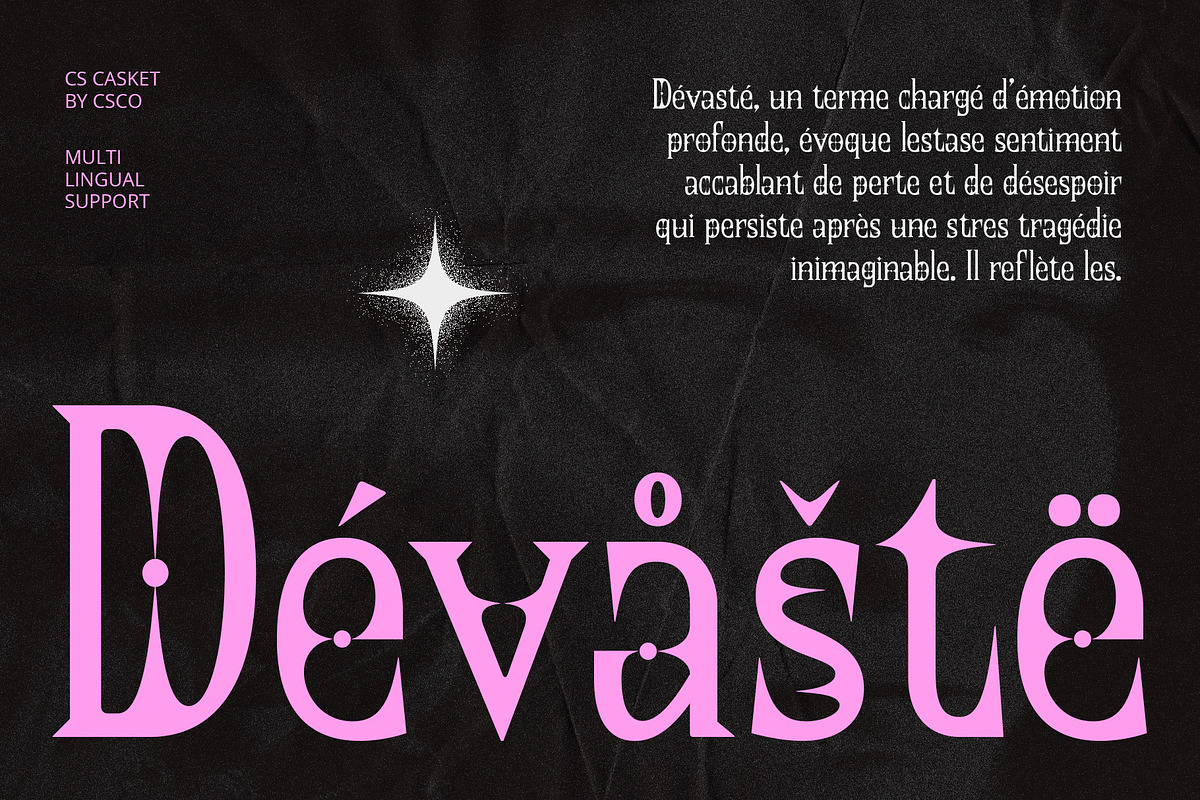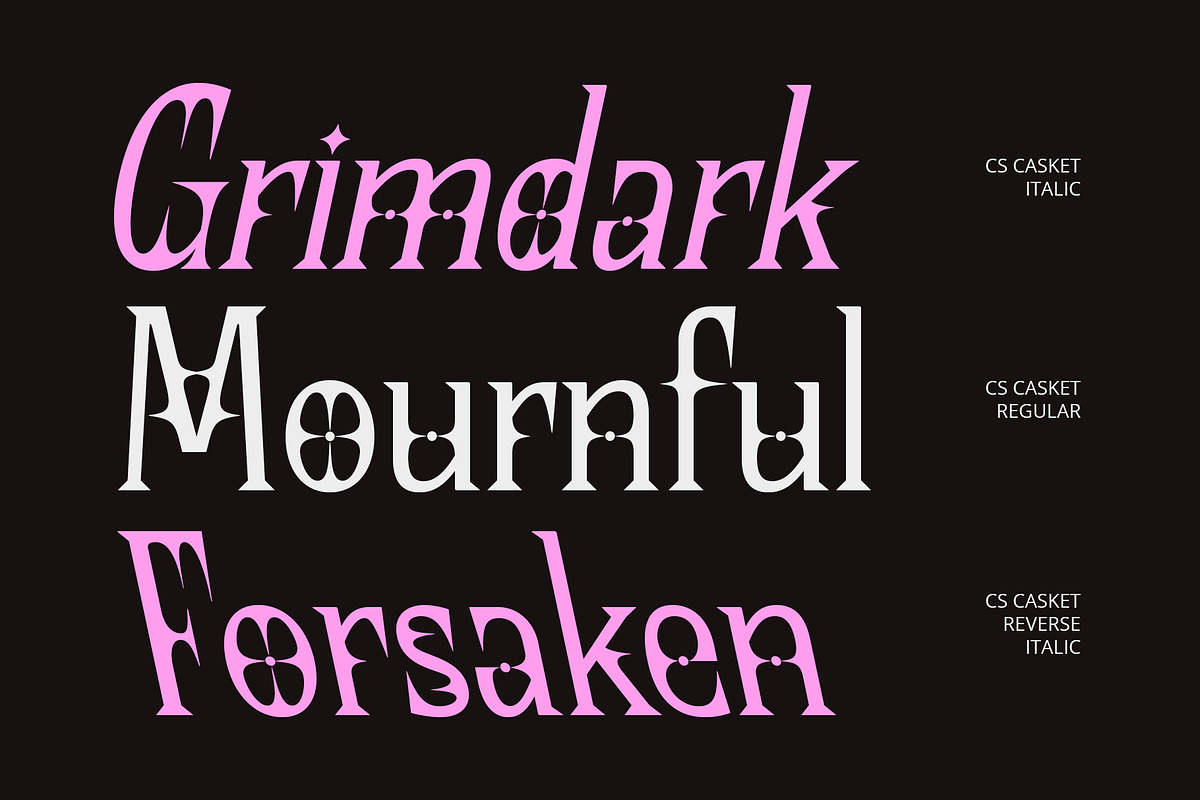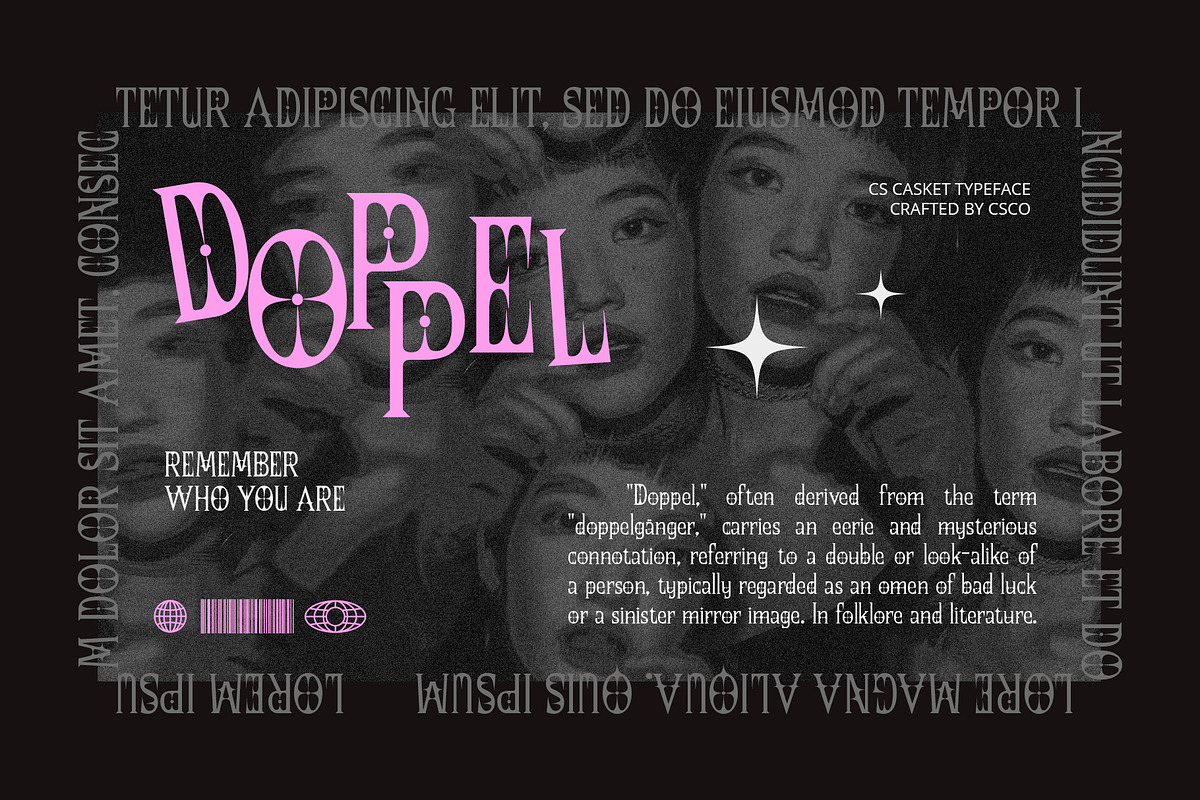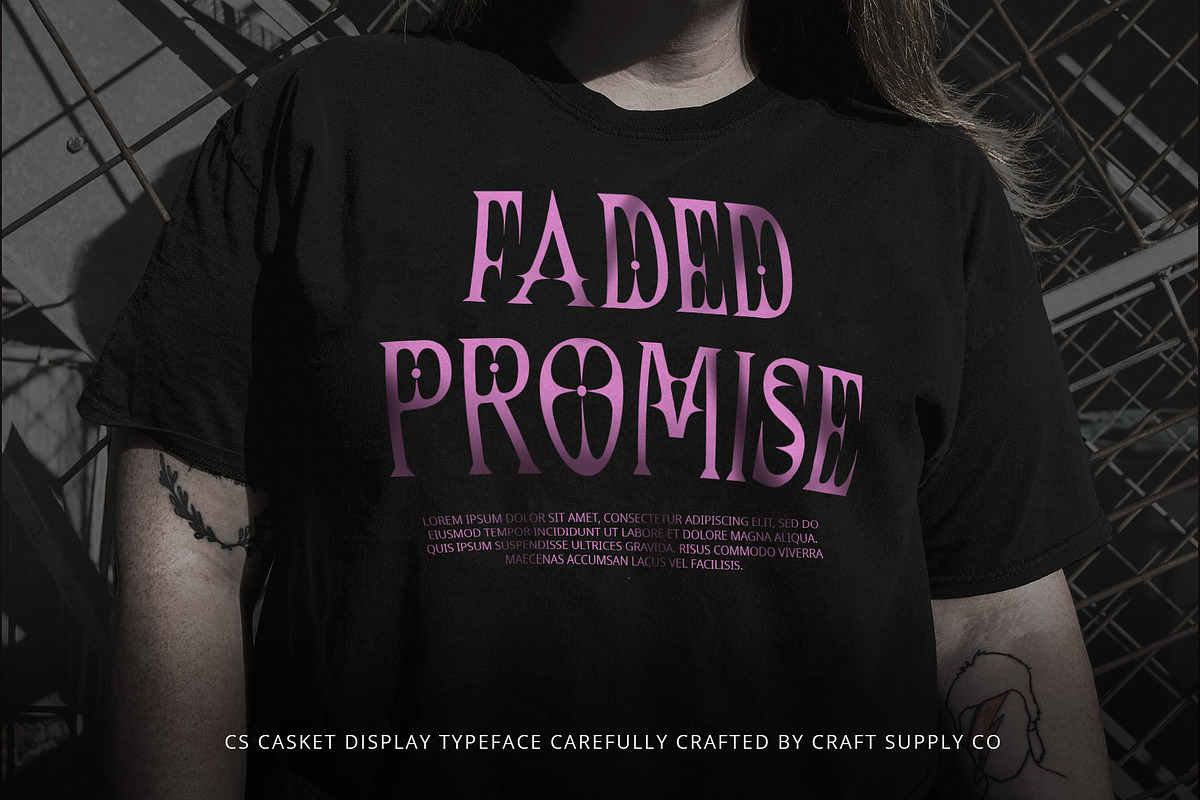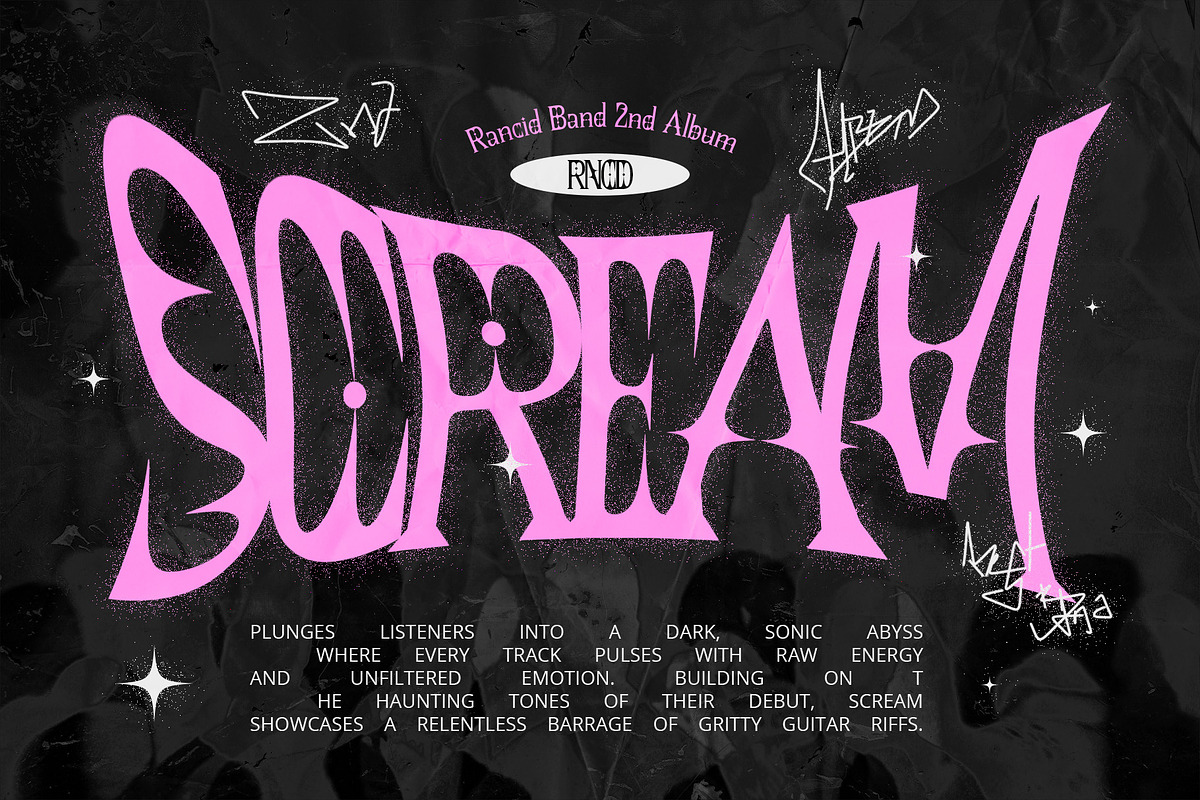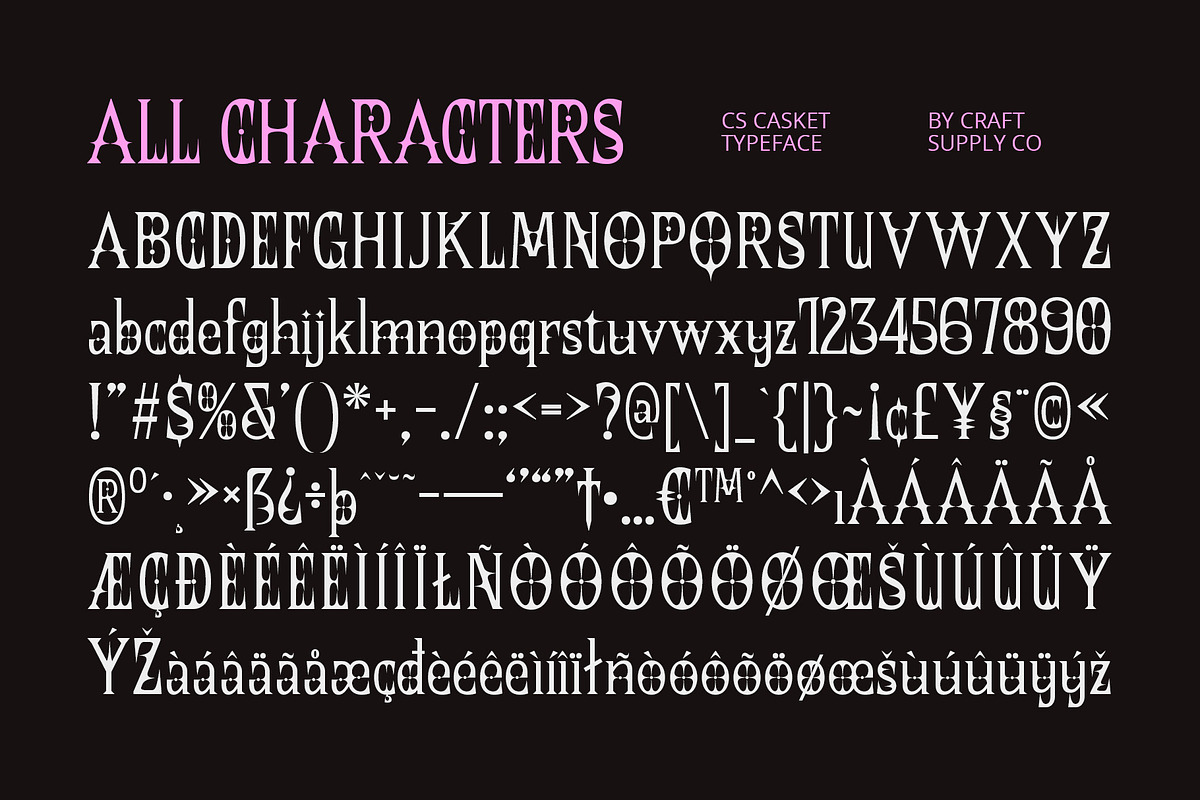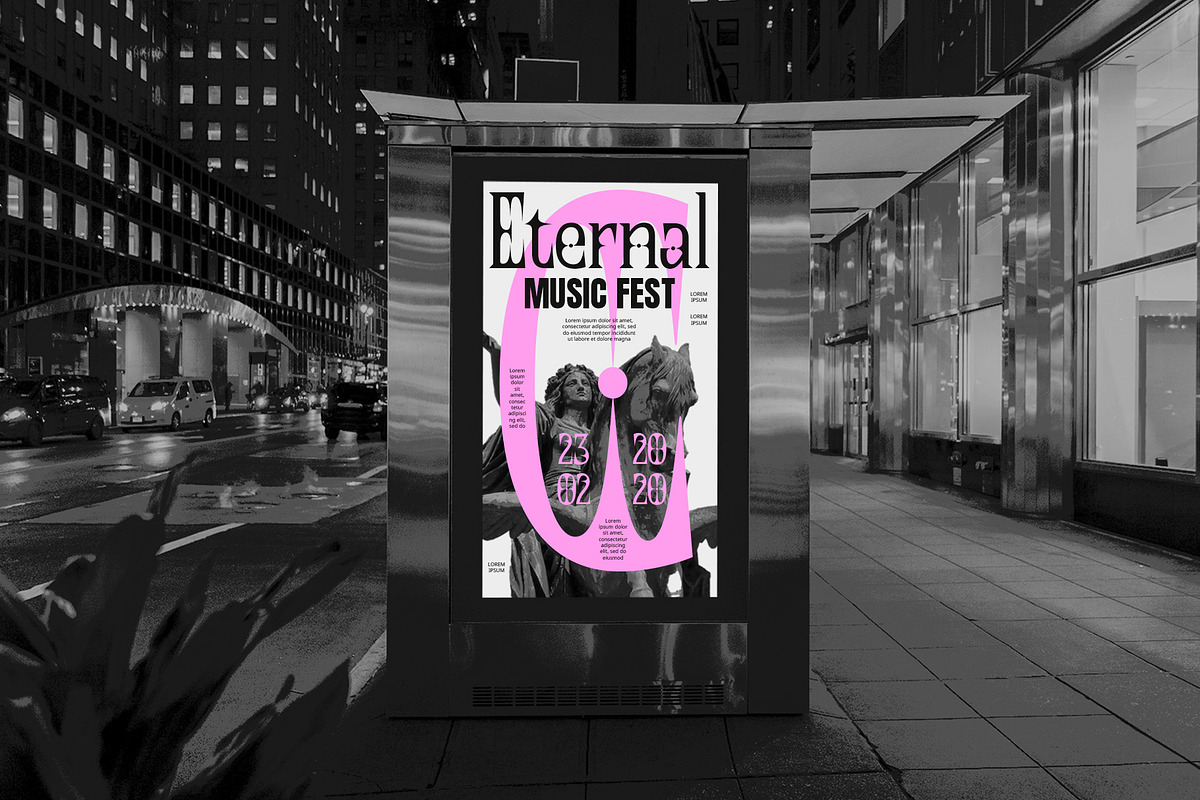
CS Casket – Gothic Font
CS Casket – Gothic Font: Bold Drama with a Dark Edge
Display Serif with a Gothic Influence CS Casket is a display serif font infused with a Gothic style, drawing inspiration from the intense aesthetics of metal rock bands. Its design features sharp letterforms, ornate lines, and intricate details, delivering a striking and dramatic appearance that stands out with a strong character.
Striking and Intense Design The Gothic influence in CS Casket creates a powerful and aggressive vibe, perfectly capturing the essence of the metal genre. Its sharp edges and elaborate details contribute to a visually arresting look that conveys strength and intensity, making it ideal for designs that demand attention.
Perfect for Metal Genre and Bold Branding Ideal for album covers, concert posters, and band merchandise, CS Casket excels in creating a memorable and impactful visual identity. Its bold and unique design makes it a standout choice for any project that requires a dramatic and edgy appearance, reflecting the dynamic spirit of metal music.
Versatile for Strong and Distinctive Visuals Whether you’re designing for the music industry or any project needing a touch of Gothic flair, CS Casket provides a distinctive and powerful solution. Its combination of sharp, ornate features and dark aesthetic ensures it remains effective and captivating across a range of creative applications.
- CS Casket Regular
- CS Casket Italic
- CS Casket Reverse Italic